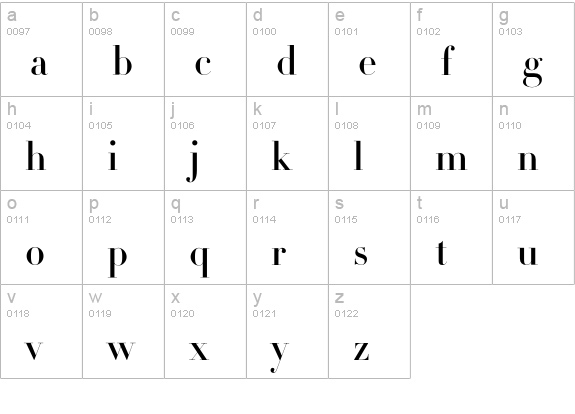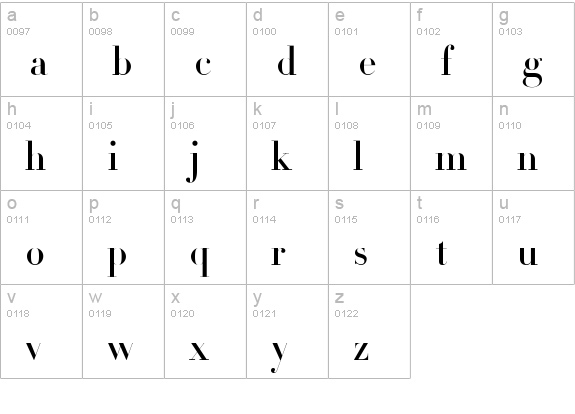
Didot-HTF-B42-Bold Font Details
Didot-HTF-B42-Bold is a strong, high-contrast variant in the Didot typeface family \xE2\x80\x94 well suited to headlines, attention-grabbing titles, and strong calls-to-action.
Didot-HTF-B42-Bold is a sophisticated and elegant font that exudes a sense of luxury and timeless beauty. Its bold weight commands attention and adds a touch of modernity to any design project. The sharp serifs and clean lines of this typeface make it perfect for high-impact headlines, invitations, branding materials, and editorial designs. What makes Didot-HTF-B42-Bold even more appealing is that it is available for free download at FontsMarket.com. This means you can easily access and use this stunning font in your projects without any cost. Whether you're a professional designer looking to elevate your work or a hobbyist seeking to enhance your creations, Didot-HTF-B42-Bold is a versatile and eye-catching choice that will surely make a statement.